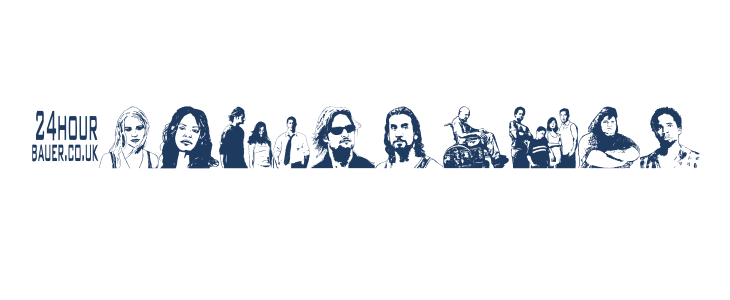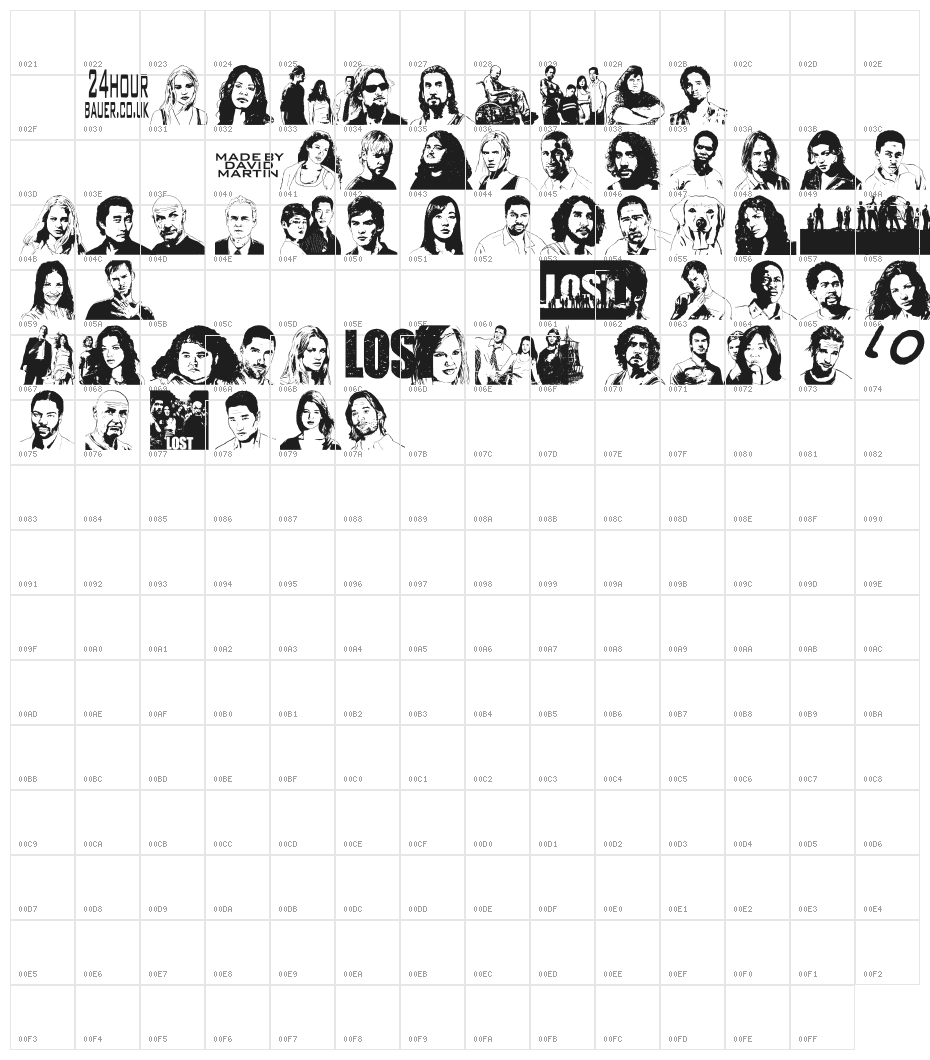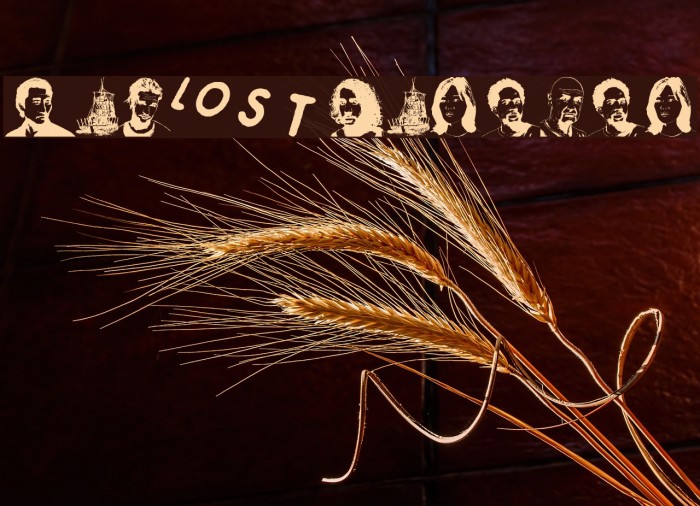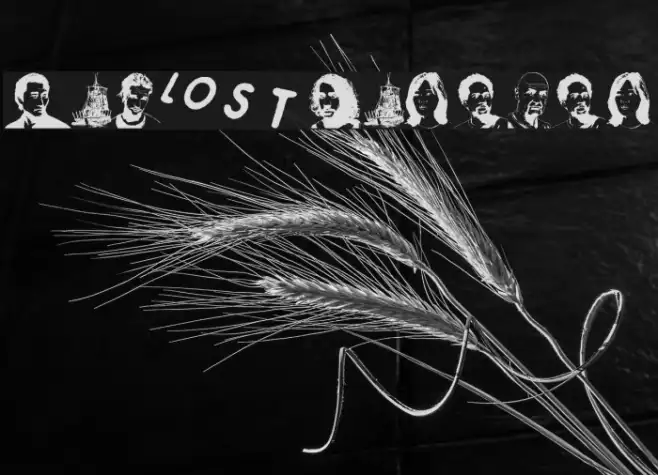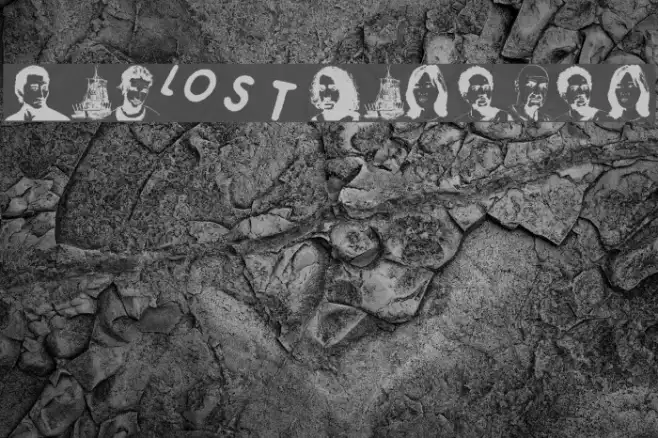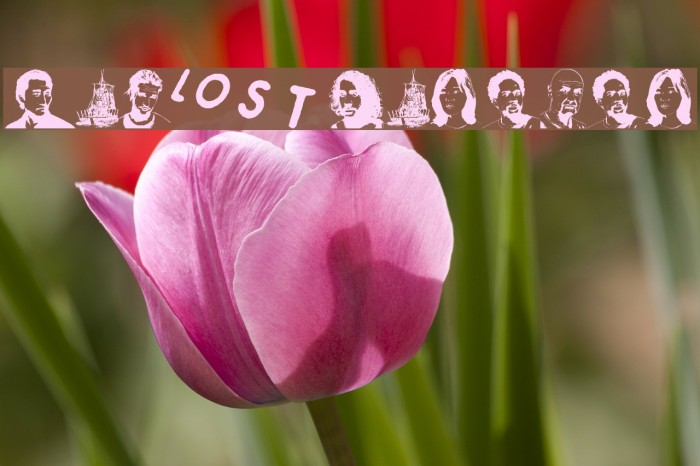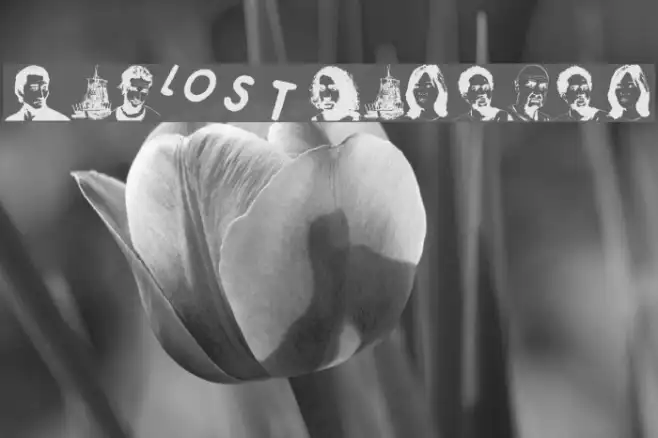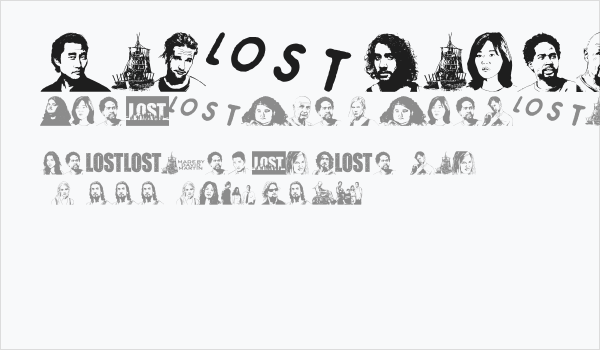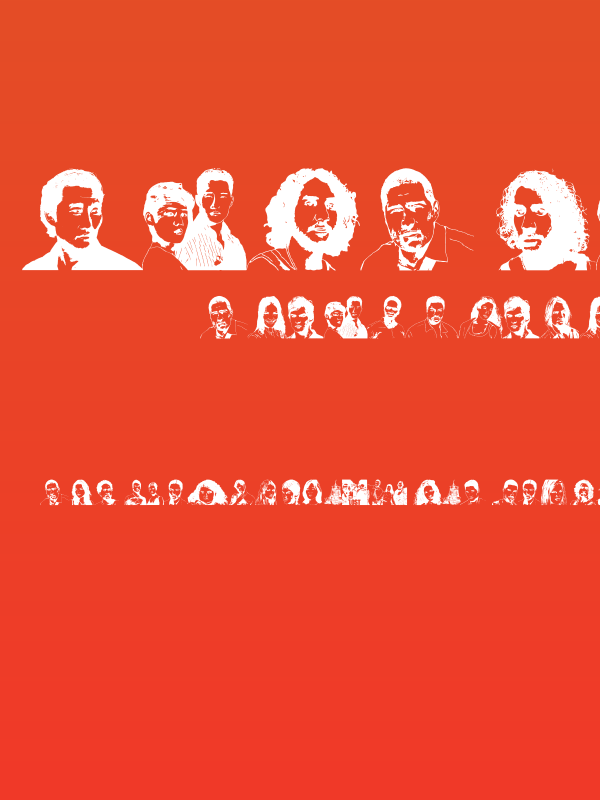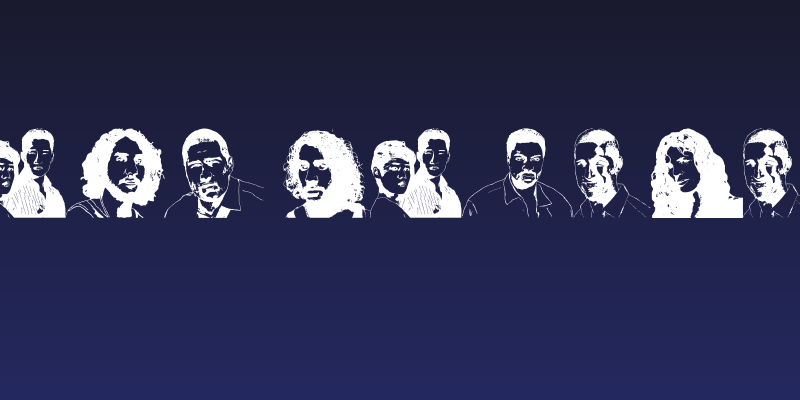
Lost Forever Font
Lost Forever Description
A decorative display font featuring silhouettes and detailed illustrations of people, likely referencing a specific TV show or pop culture theme, with bold, uppercase letters interspersed among the images. The letterforms are blocky and sans-serif, with high contrast and a dramatic, eye-catching style.
| Overall Style | Decorative, Pop Culture, Thematic |
| Use Case | Headlines, Posters, Logos, Themed Graphics |
| Proposed Projects | Themed posters, fan art, event promotions, entertainment branding, novelty merchandise. |